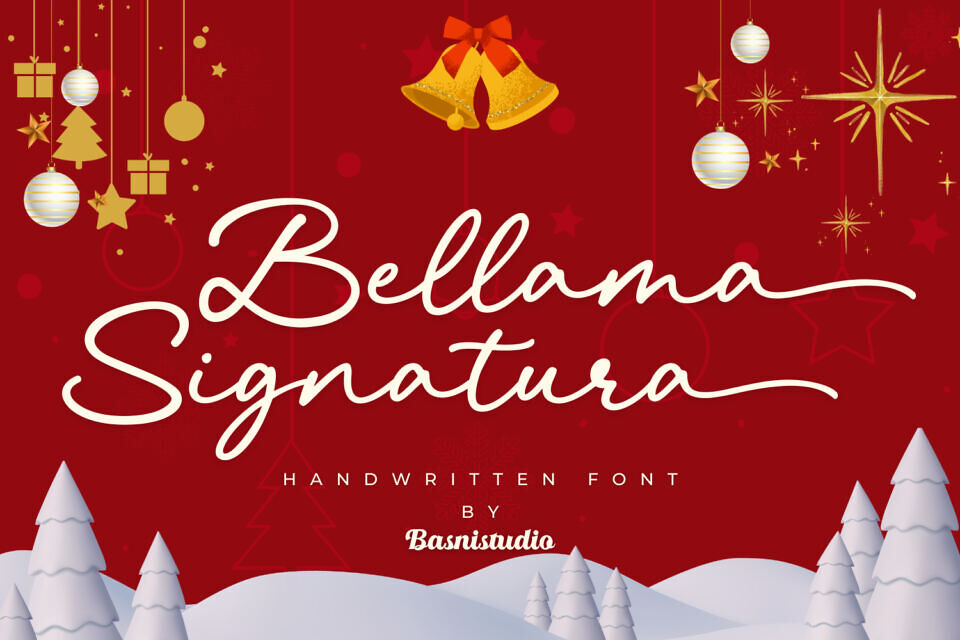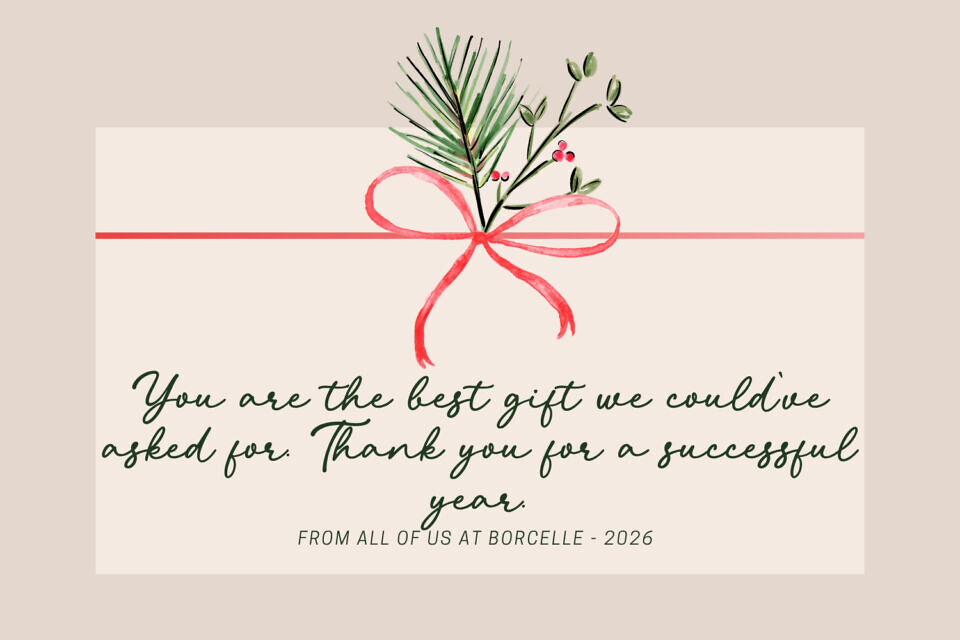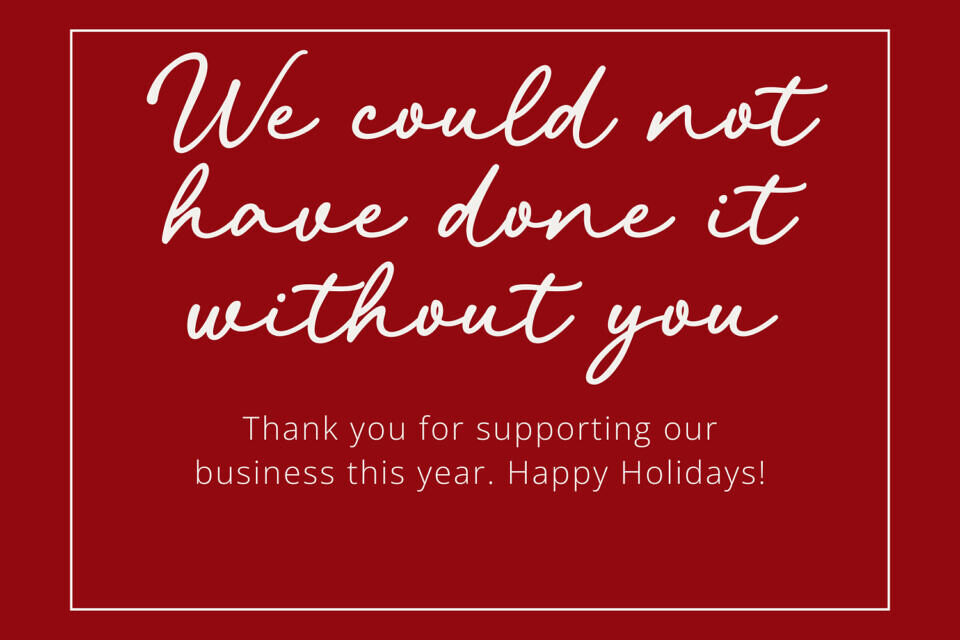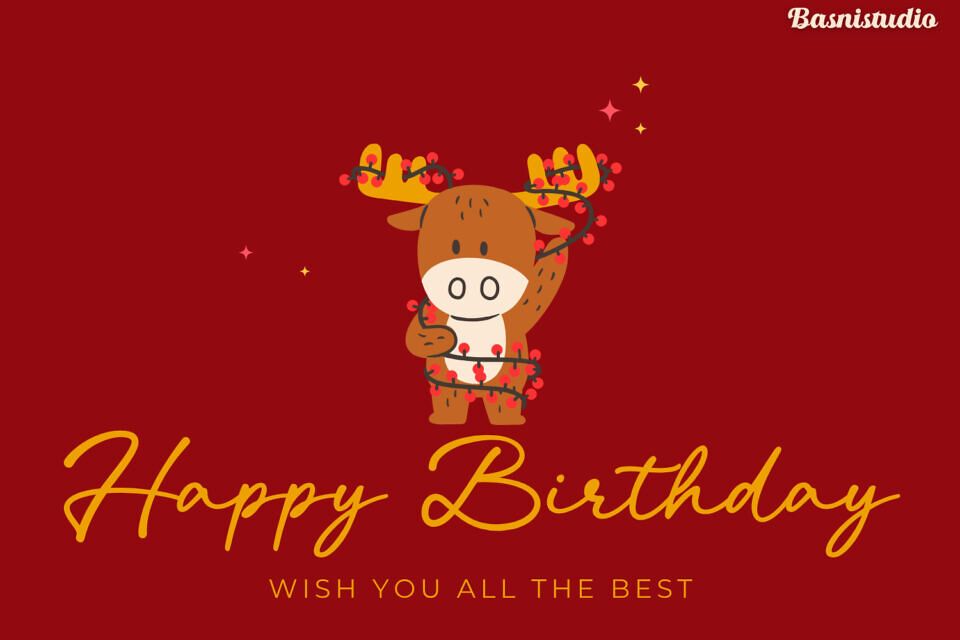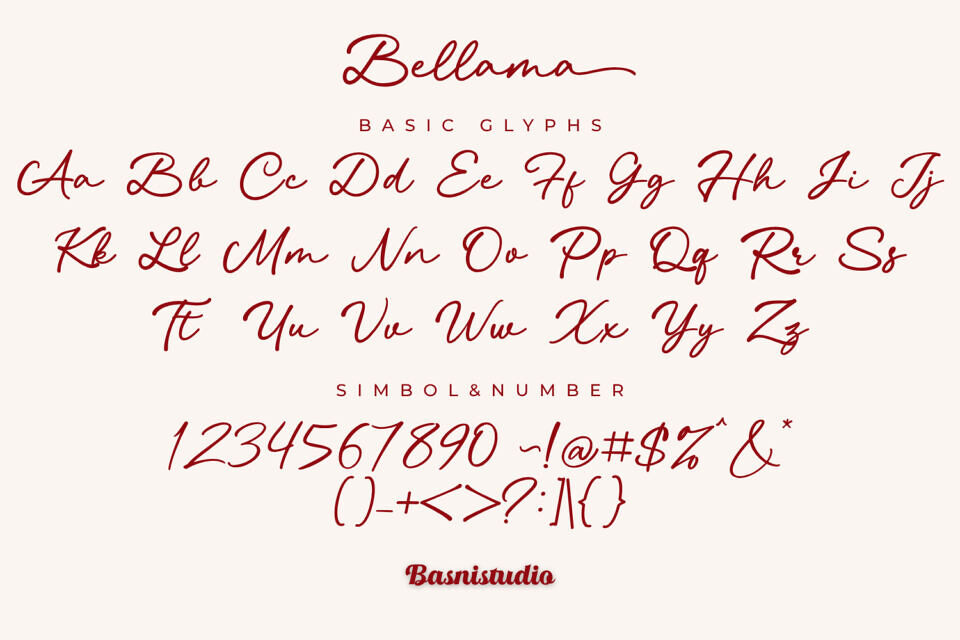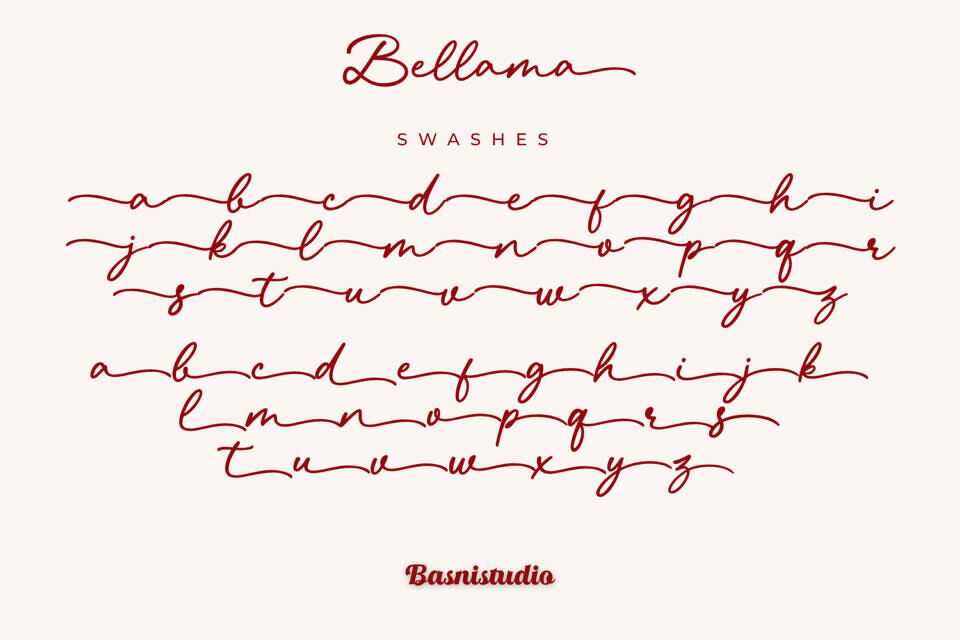
Introducing Bellama, a Signature Font that adds a elegant, versatile touch to everything from branding and social media to invitations and packaging.
- Elegant & Versatile – Perfect for logos, quotes, greeting cards, and more
- Authentic Handwritten Feel – Created with real pen strokes for a natural look
Whether you’re building a powerful brand identity or crafting a standout logo, Bellama a Signature Font gives you the creative edge you need.